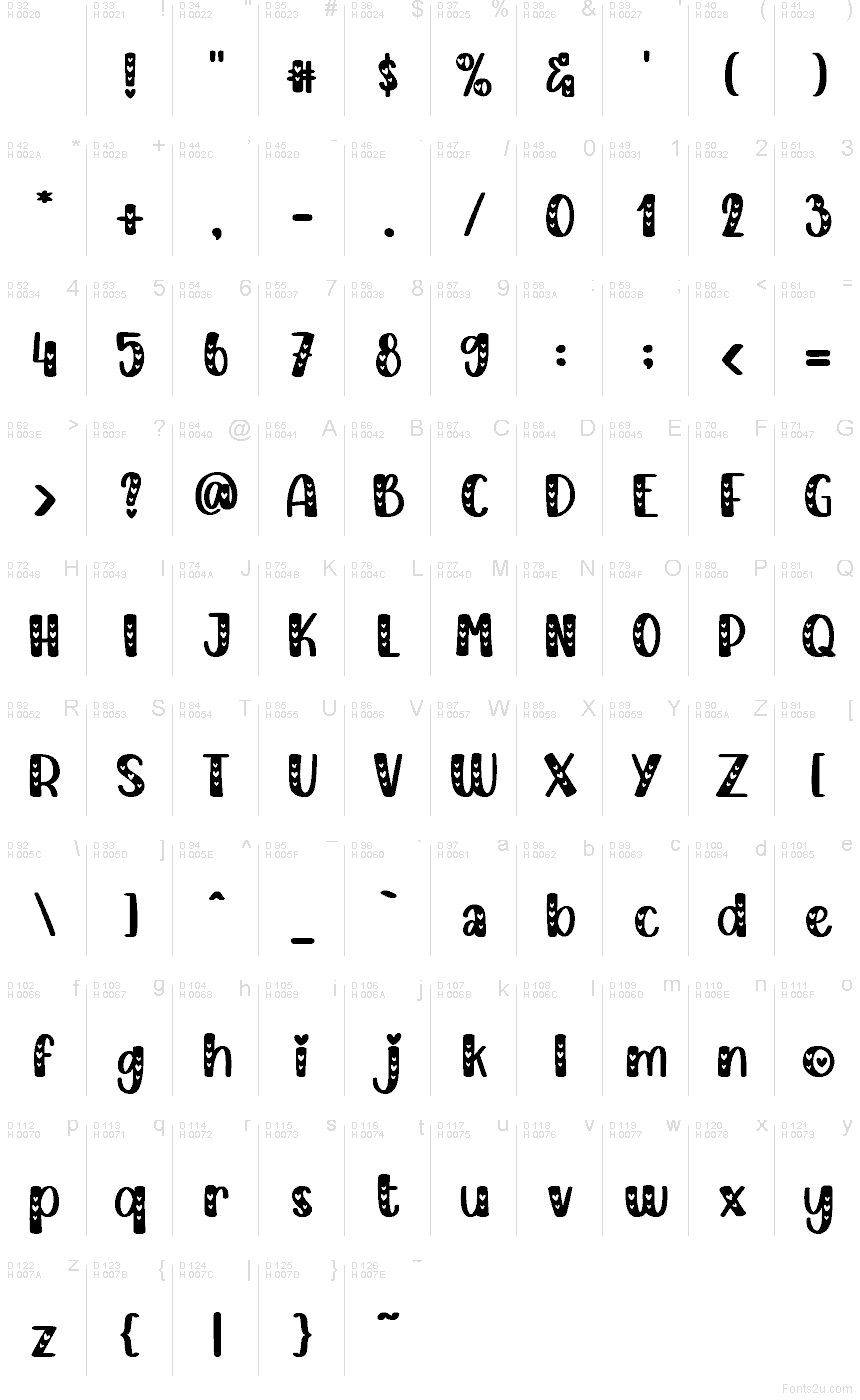
Heart font by Mozatype is a free valentine holiday font that turns every word into a little love note. Chunky black letters are filled with vertical rows of cut-out hearts, giving it a hand-crafted, cut-paper feel that’s bold, friendly, and instantly festive. The shapes are simple and rounded, so even with all the inner detailing it still reads clearly at a glance.
Using Heart, this free font shines on Valentine cards, kids’ crafts, party invitations, classroom printables, stickers, and sweet social posts. It works beautifully when you let it go big on titles or short phrases, then pair it with a clean sans serif for body text to keep things readable.